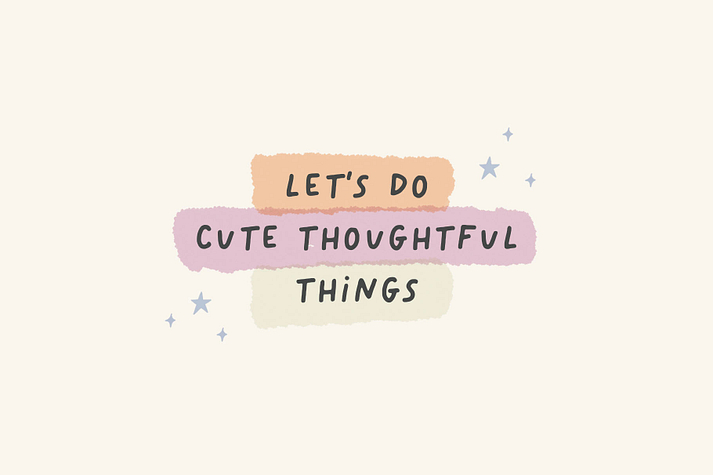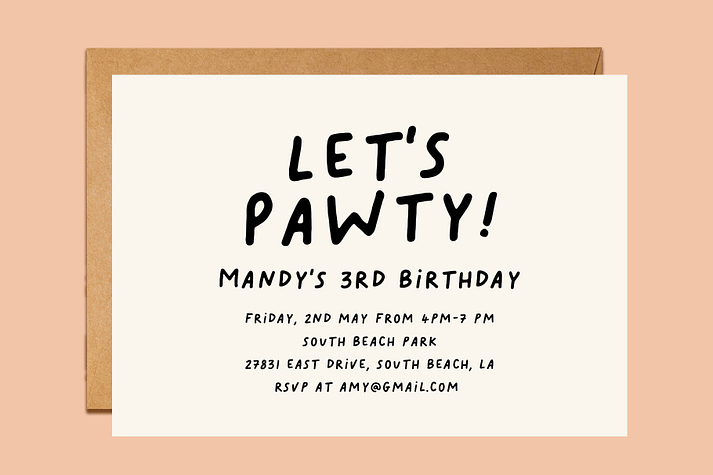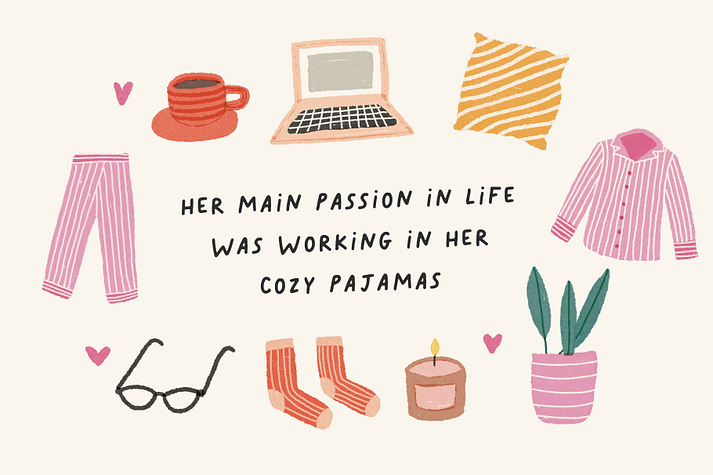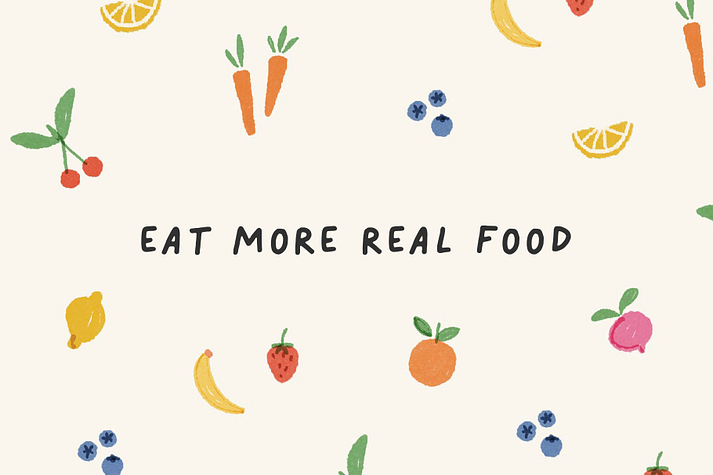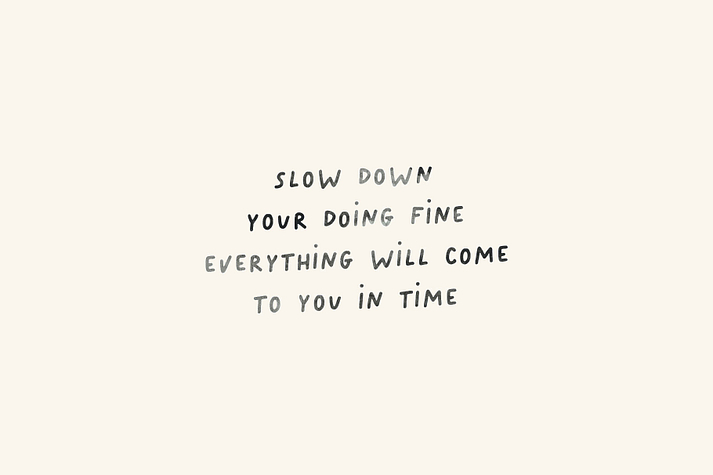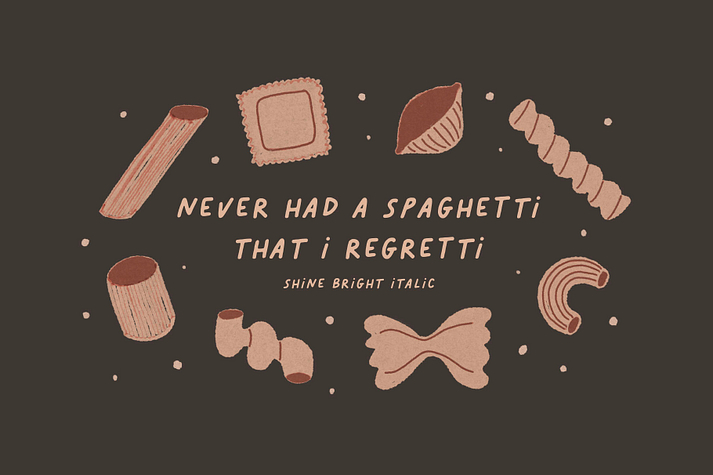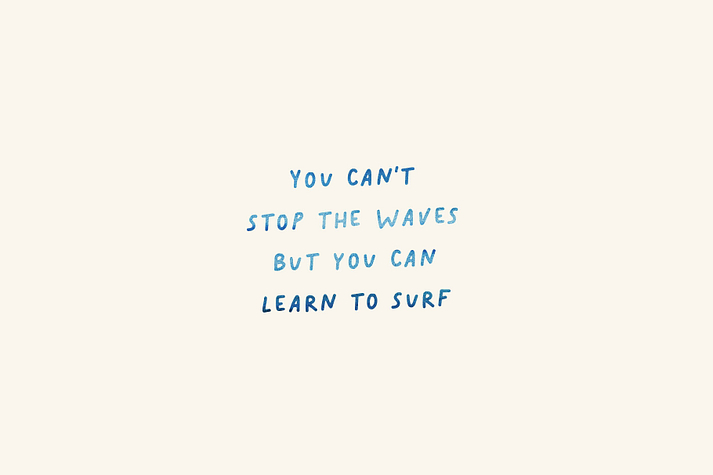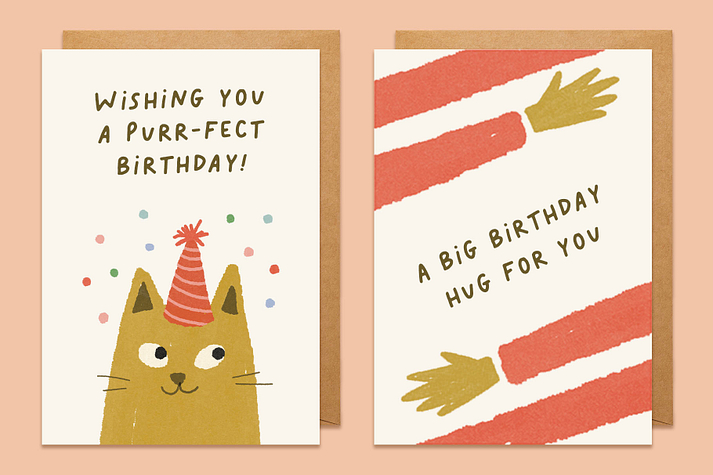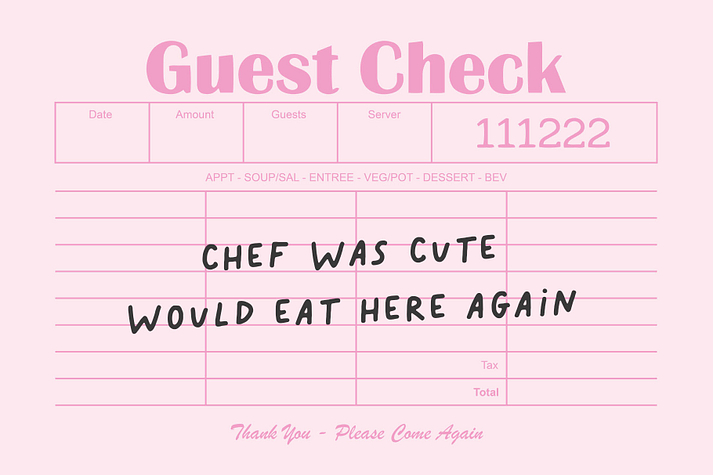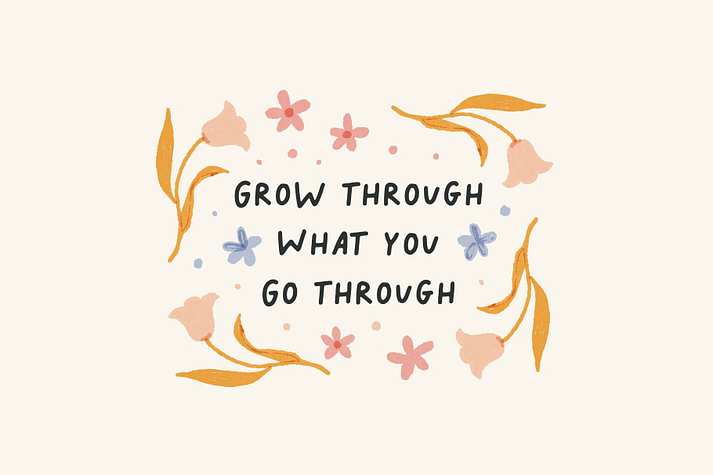
Shine Bright
Shine Bright is a font family. This typeface has four styles and was published by ReveryWorks.
Introducing Shine Bright Font! A little handwritten font inspire by picture books and children’s illustrations. Pairs super well with doodles and drawings! Also a really cute font for wordy greeting cards!
Access alternate letters by switching between uppercase and lowercase keystrokes. It comes in 3 handy font versions: